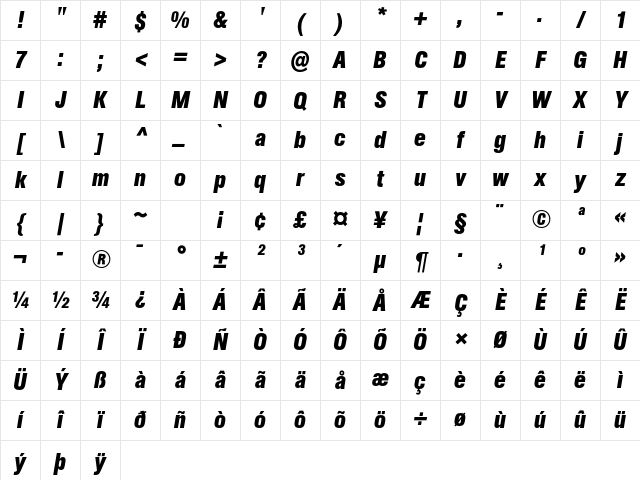
AG Book Cd Bold Italic
Design Context for AG Book Cd
AG Book Cd is a composed and adaptable typeface that performs quietly and consistently across a wide range of design contexts. The slanted form adds forward momentum and visual energy. Its bold stroke weight gives it real presence on the page.